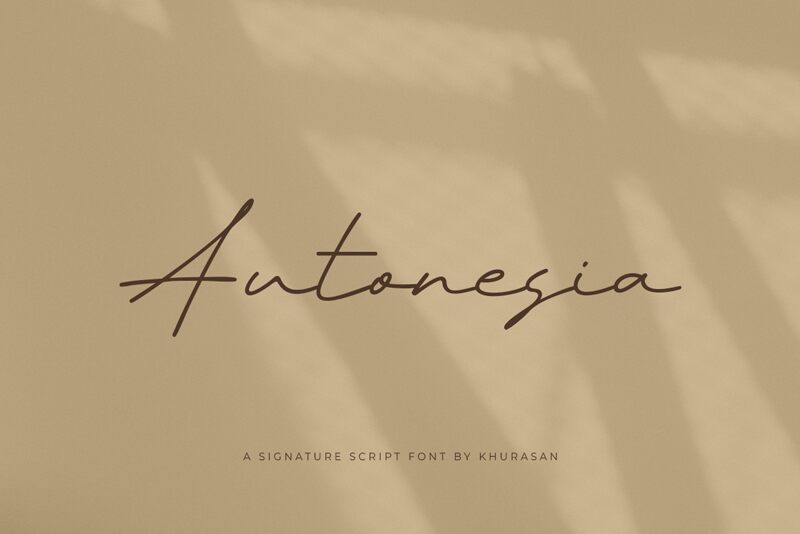
Autonesia
Autonesia by Khurasan is a stunning extra-light handwritten font that exudes cleanliness, style, and elegance. Its modern and sophisticated script style makes it a perfect choice for a wide range of creative projects.
Whether you're designing posters, logos, magazines, book covers, or banners, Autonesia will add a touch of class to your work. With its versatility and ability to effortlessly complement various design concepts, this font is sure to make your creations stand out from the crowd.
Embrace the beauty of Autonesia and let it elevate your designs to new heights of visual appeal.